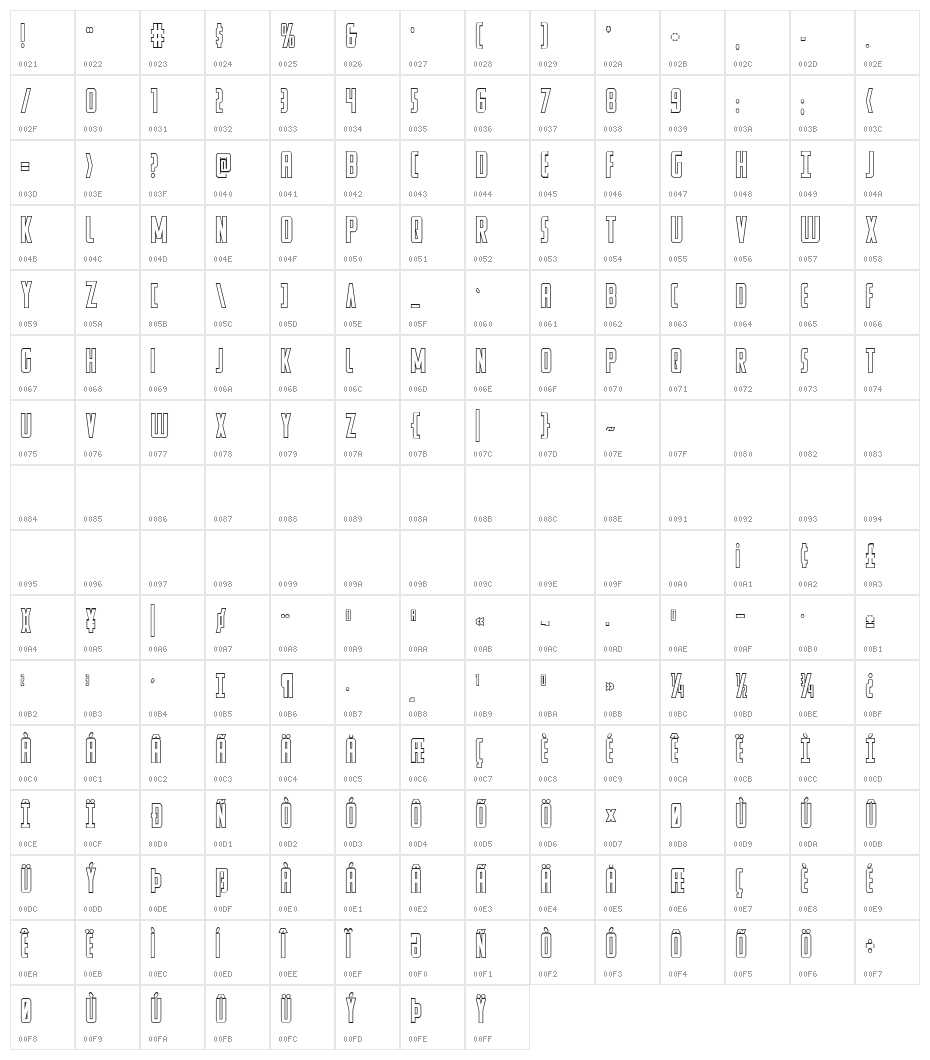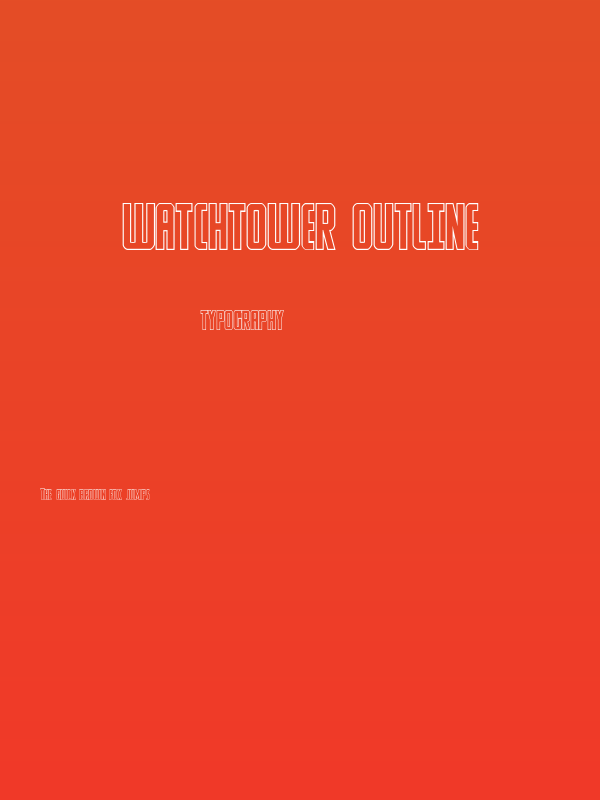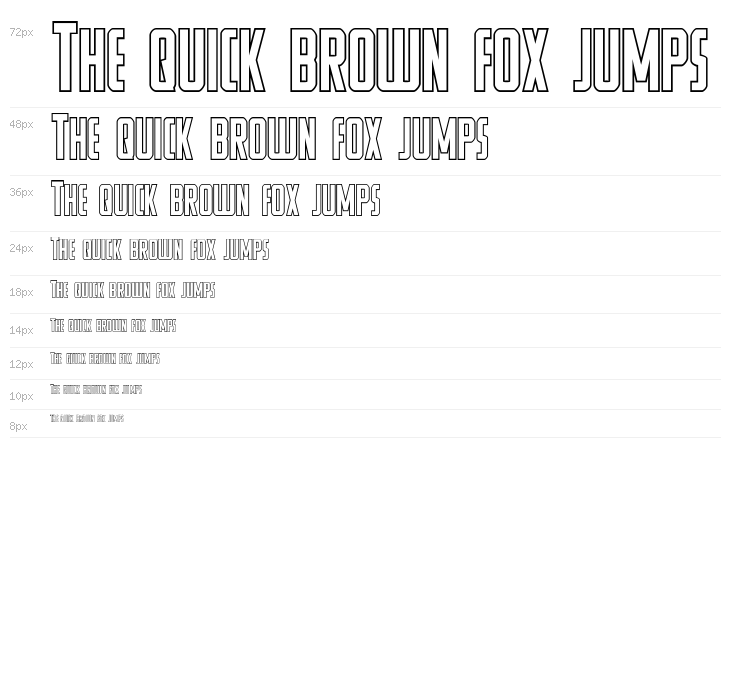
Watchtower Outline Font
Watchtower Outline Description
This font features a bold, outlined style that gives it a striking and modern appearance. The characters are uppercase and lowercase, with a geometric structure that emphasizes straight lines and sharp angles. The outline effect creates a sense of depth and dimension, making it ideal for eye-catching designs. The numerals and special characters maintain the same outlined aesthetic, ensuring consistency across all elements. This font is particularly suited for projects that require a bold statement, such as posters, headlines, and branding materials.
| Proposed Projects | Ideal for posters, headlines, branding, and any design needing a bold, modern look. |